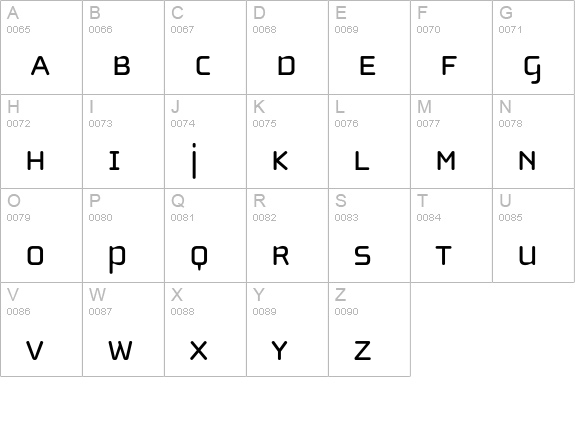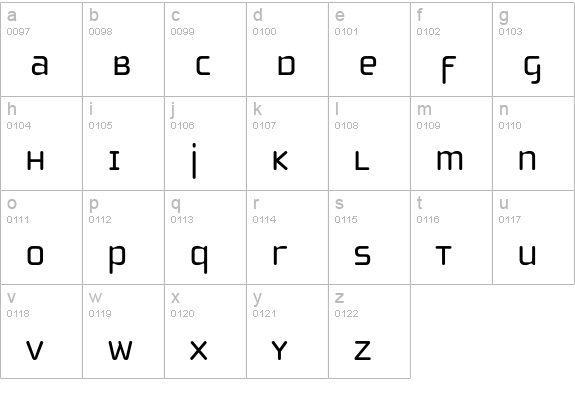
ChollaUnicaseLigatures Font Details
ChollaUnicaseLigatures is a stunning and versatile font that effortlessly combines the elegance of unicase letterforms with the charm of ligatures. This unique typeface exudes a sense of sophistication and creativity, making it perfect for a wide range of design projects. The intricate ligatures add a touch of whimsy and personality to your text, creating a captivating visual impact. What sets ChollaUnicaseLigatures apart is not only its striking design but also its accessibility - it is completely free to download at FontsMarket.com. This means that you can easily enhance your designs with this exquisite font without any cost involved. Whether you're working on branding, packaging, invitations, or any other project, ChollaUnicaseLigatures is sure to elevate your design to new heights. Add a touch of magic to your creations with this exceptional font today!